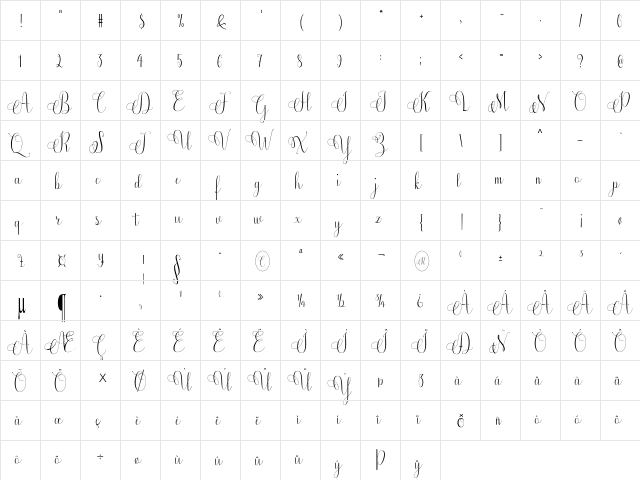
Amidah Regular
| Foundry | Aqeela Studio |
| Designer | Aqeela Studio |
Design Context for Amidah Typeface
Amidah is a composed and adaptable typeface that performs quietly and consistently across a wide range of design contexts.